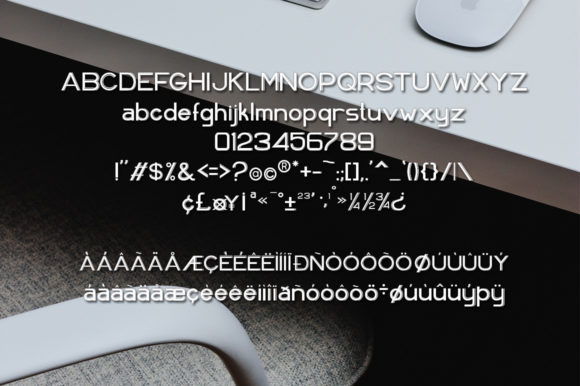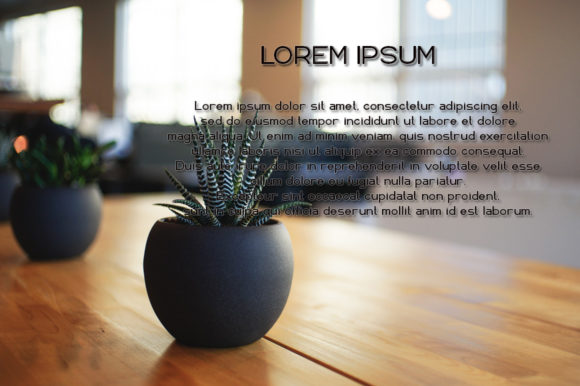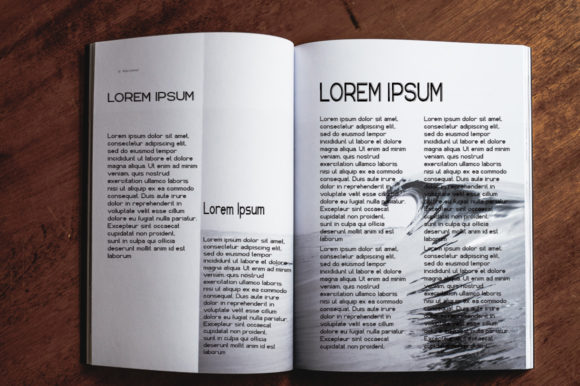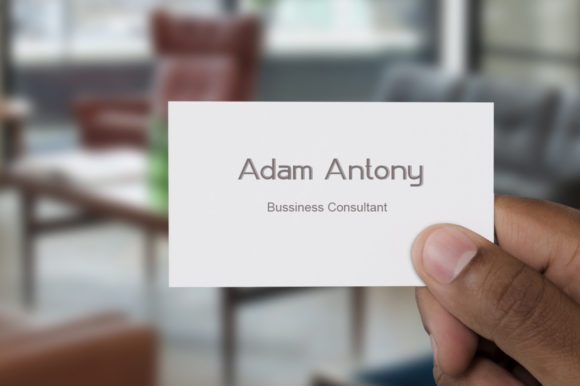
Aveela Font: The Perfect Blend of Modernity and Organic Charm
In the world of typography, fonts play a crucial role in conveying the tone and personality of a brand or design. With the ever-evolving landscape of design trends, it’s essential to stay ahead of the curve with fresh and exciting fonts. One such font that has been making waves in the design community is Aveela – a modern and sleek sans serif font with an organic feel that’s sure to capture your heart.
The Inspiration Behind Aveela
Aveela’s design is rooted in the perfect blend of modernity and organic charm. Its sleek lines and curves evoke a sense of sophistication, while its organic feel adds a touch of warmth and approachability. This unique combination makes Aveela an excellent choice for designers looking to create visually stunning and engaging designs that resonate with their audience.
Key Features of Aveela Font
Aveela boasts several key features that set it apart from other fonts in its category. Some of its notable features include:
- Modern and Sleek Design: Aveela’s sans serif design gives it a clean and contemporary look that’s perfect for modern designs.
- Organic Feel: The font’s subtle curves and rounded edges add an organic feel that’s both soothing and inviting.
- Light Charm: Aveela’s light and airy texture makes it an excellent choice for designs that require a touch of elegance and sophistication.
- High Versatility: Aveela is suitable for a wide range of design applications, from branding and advertising to packaging and digital media.
Use Cases for Aveela Font
Aveela’s versatility makes it an excellent choice for various design projects. Here are some use cases where Aveela can shine:
- Branding and Logo Design: Aveela’s unique blend of modernity and organic charm makes it an excellent choice for creating memorable brand identities.
- Advertising and Marketing: The font’s light and airy texture makes it perfect for creating eye-catching ad campaigns and marketing materials.
- Packaging Design: Aveela’s sleek and modern design makes it an excellent choice for packaging designs that require a touch of sophistication.
- Digital Media: The font’s clean and legible design makes it suitable for digital media, including websites, social media, and mobile apps.
Tips for Using Aveela Font Effectively
To get the most out of Aveela, here are some tips for using the font effectively:
- Pair it with Other Fonts: Aveela pairs well with other fonts, especially those with a more traditional or serif design. Experiment with different font combinations to create visually interesting designs.
- Use it in Headings and Titles: Aveela’s light charm makes it perfect for headings and titles. Use it to create eye-catching headlines that grab attention.
- Experiment with Colors: Aveela looks great in a variety of colors. Experiment with different color schemes to find the perfect combination for your design.
Aveela is a modern and sleek sans serif font with an organic feel that’s sure to inspire designers and crafters. Its unique blend of modernity and charm makes it an excellent choice for a wide range of design applications. Whether you’re creating a brand identity, advertising campaign, or packaging design, Aveela is a font that’s sure to impress. So why not give Aveela a try and experience its light charm for yourself?